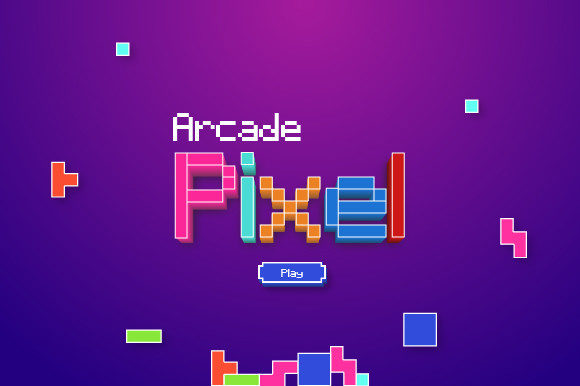
Prepare to be amazed by the Arcade Pixel Font, a captivating display font that will ignite your creativity and transform your designs into extraordinary masterpieces. This font is more than just a collection of letters; it's a gateway to a world of endless possibilities, where your imagination can run wild.
Arcade Pixel is not just another font; it's a work of art, meticulously crafted to evoke nostalgia and a touch of playfulness. Each letter is a pixelated delight, reminiscent of classic video games and the golden age of arcade machines. Its sharp edges and geometric shapes create a striking visual impact that will make your designs stand out from the crowd.
But Arcade Pixel is not just about aesthetics; it's also incredibly versatile, making it the perfect choice for a wide range of projects. Whether you're creating eye-catching website headers, designing unforgettable business cards, or crafting unique posters, this font will elevate your work to new heights. Its bold and distinctive character will add a touch of personality and charm to any project, leaving a lasting impression on your audience.
With Arcade Pixel, you'll have the power to:
- Embark on a retro adventure with its nostalgic charm, instantly transporting your designs to the golden age of gaming.
- Unleash your creativity and let your imagination soar, as this font empowers you to create designs that are as unique as your vision.
- Captivate your audience with its striking visual impact, leaving them mesmerized by the beauty and originality of your creations.
- Experience the versatility of a font that adapts effortlessly to any project, becoming an indispensable tool in your design arsenal.
Don't settle for ordinary fonts that blend into the background. Choose Arcade Pixel and let your designs shine brighter than a thousand stars. Embrace the power of nostalgia and creativity, and watch as your work transforms into something truly extraordinary.